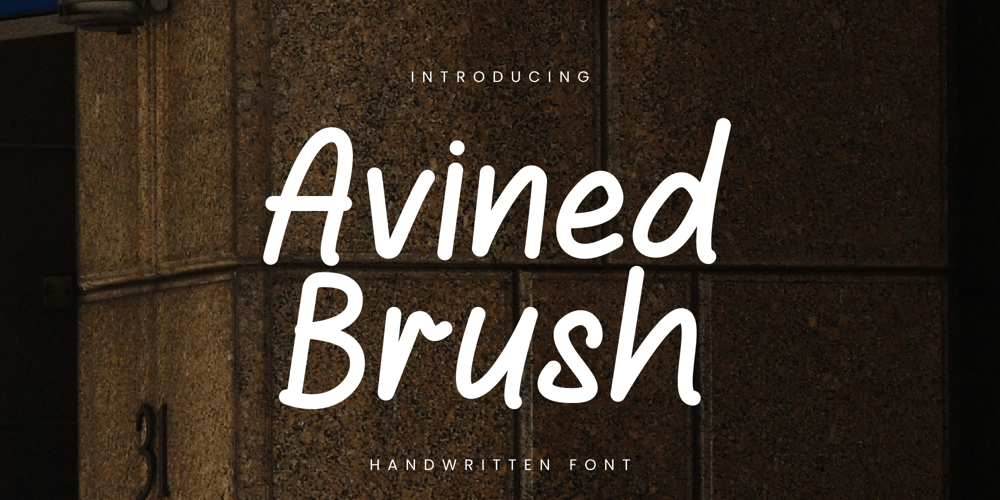
Avined Brush Font Family was designed by Randi Irvan and published by Rvandtype. Avined Brush contains 1 styles and family package options. Avined Brush is a handcrafted, handwritten font that exudes personality and charm. With its bold strokes and natural flow, this font brings a touch of authenticity and creativity to any project. Perfect for branding, social media, logos, and more, Avined Brush adds a unique, artistic flair that stands out. Embrace the handcrafted elegance of Avined Brush to make your designs unforgettable.Features Uppercase & Lowercase Alternate Characters Numbers and Punctuation Multilingual Support PUA Encoded